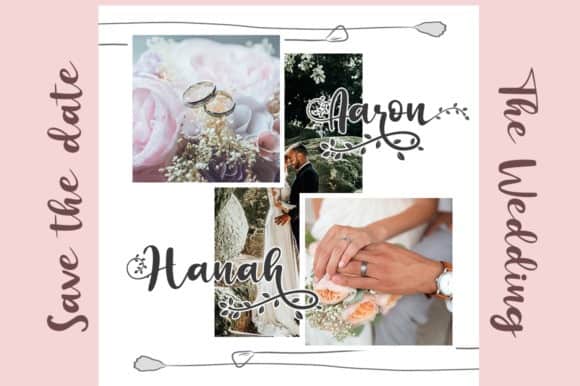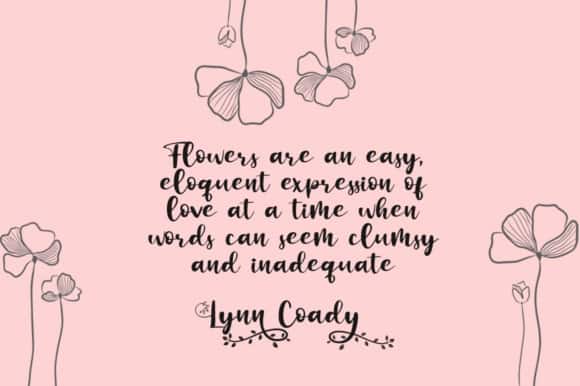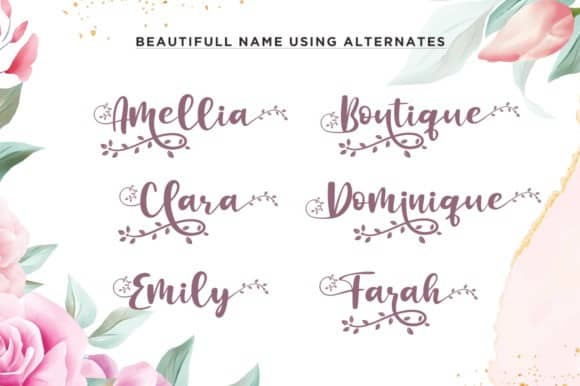
Botanical Flourish Calligraphy Font
Botanical Flourish Calligraphy Font is a minimalist and beautiful script font. Its casual charm makes it appear wonderfully down-to-earth, readable and, ultimately, incredibly versatile. Made from font designer named Haksen. It’s an elegant and flowing handwritten font. It is PUA encoded which means you can access all of the glyphs and swashes with ease! It features a varying baseline, smooth lines, gorgeous glyphs and stunning alternates. It maintains its classy calligraphic influences while feeling contemporary and fresh.